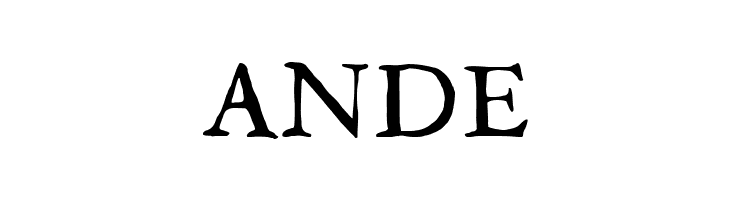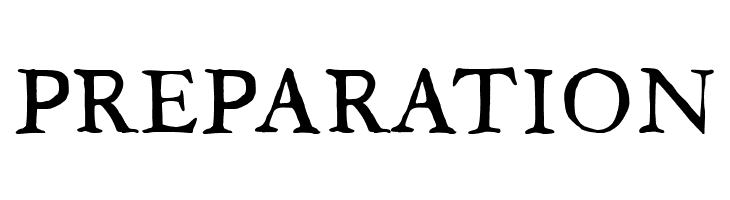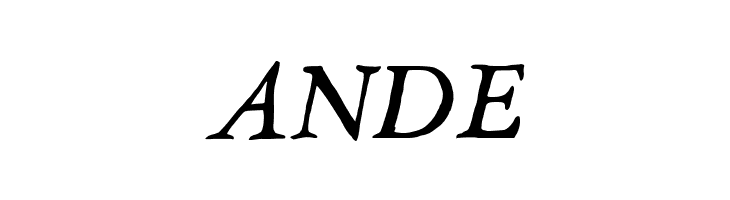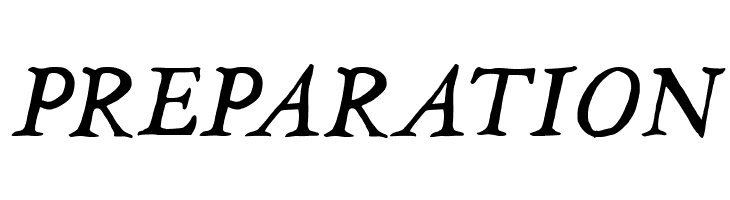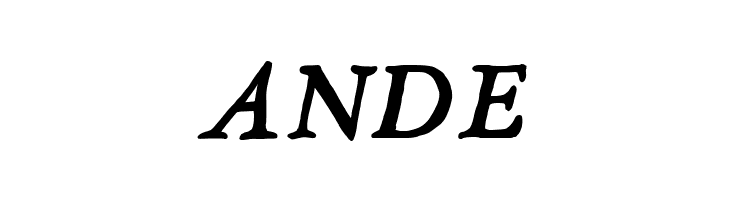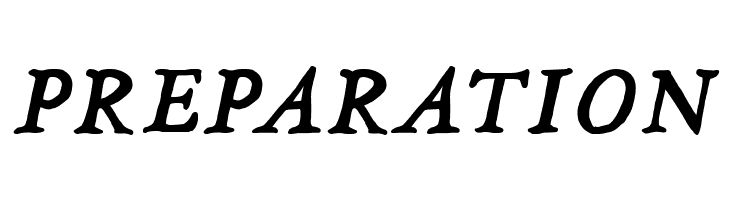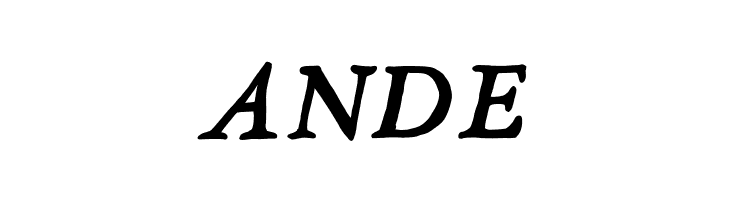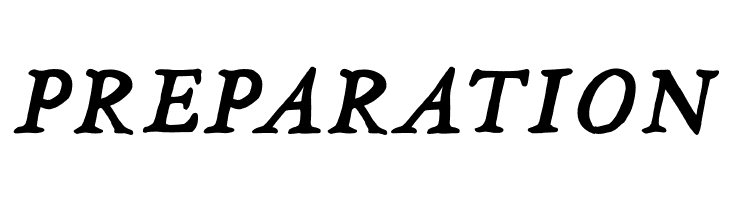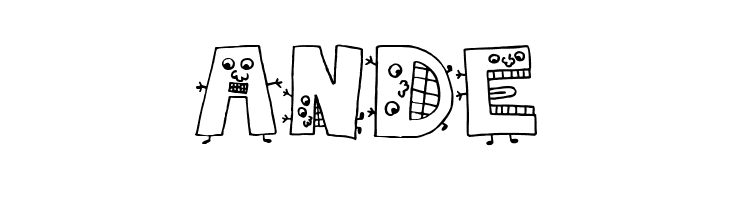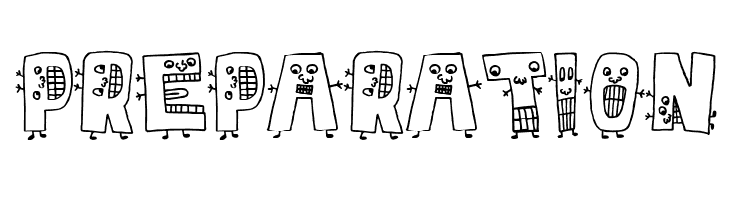
A bold, italicized font with dynamic strokes and a classic, expressive style.
A bold, italic font with a dynamic and expressive style.
An elegant italic font with smooth curves and classic flourishes.
A classic, handwritten-style font with an elegant and historical touch.
A playful, cartoon-like font with quirky, decorative characters.
A bold, decorative font with high contrast and intricate details.
A bold, gothic-style font with dramatic serifs and decorative elements.
An ornate, decorative font with bold, intricate letterforms and dramatic contrast.
A detailed dingbat font featuring cultural and artistic symbols.
A bold, ornate Blackletter font with a gothic and medieval style.
A bold, ornate blackletter font with a medieval gothic style.
A decorative font with intricate patterns and bold uppercase letters.
A bold, decorative font with a mummy-like bandage design.
A bold, decorative font with a mummy wrap pattern, perfect for themed displays.
A bold, playful font with a rugged, hand-drawn texture.
A bold, decorative font with intricate geometric details and sharp angles.
A bold, decorative font with sharp, angular edges and a three-dimensional effect.
A detailed fantasy-themed dingbat font with medieval and mythical symbols.
A bold, angular font with geometric shapes and sharp edges.
A bold, gothic-inspired font with sharp, angular edges and dramatic flair.
A bold, condensed font with high contrast and a modern vintage flair.
A bold, narrow font with elongated characters and a dynamic style.
A bold, decorative font with a classic Western saloon style.
A classic blackletter font with ornate and intricate design elements.
A bold, decorative blackletter font with intricate details and a vintage gothic style.
A bold, ornate blackletter font with a medieval aesthetic.
A bold, ornate blackletter font with a gothic, medieval style.
A bold, decorative font with sharp serifs and high contrast, ideal for dramatic displays.